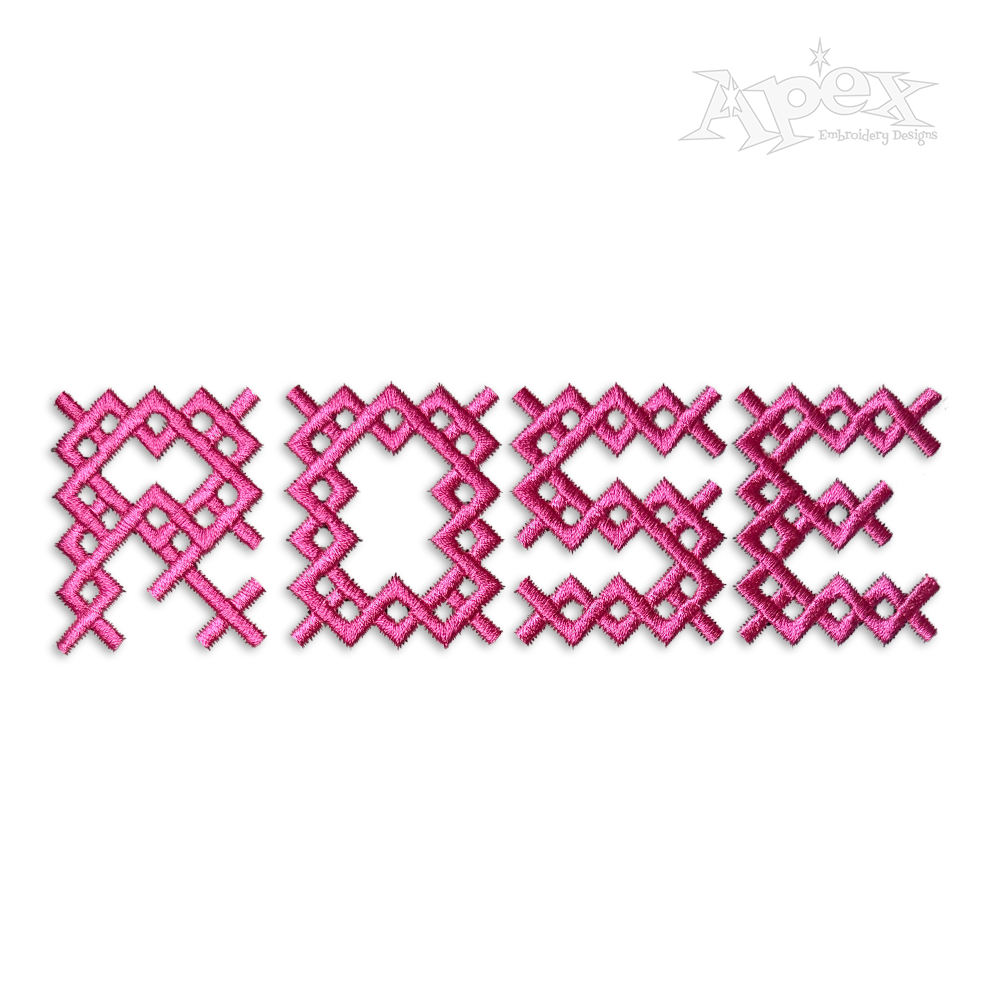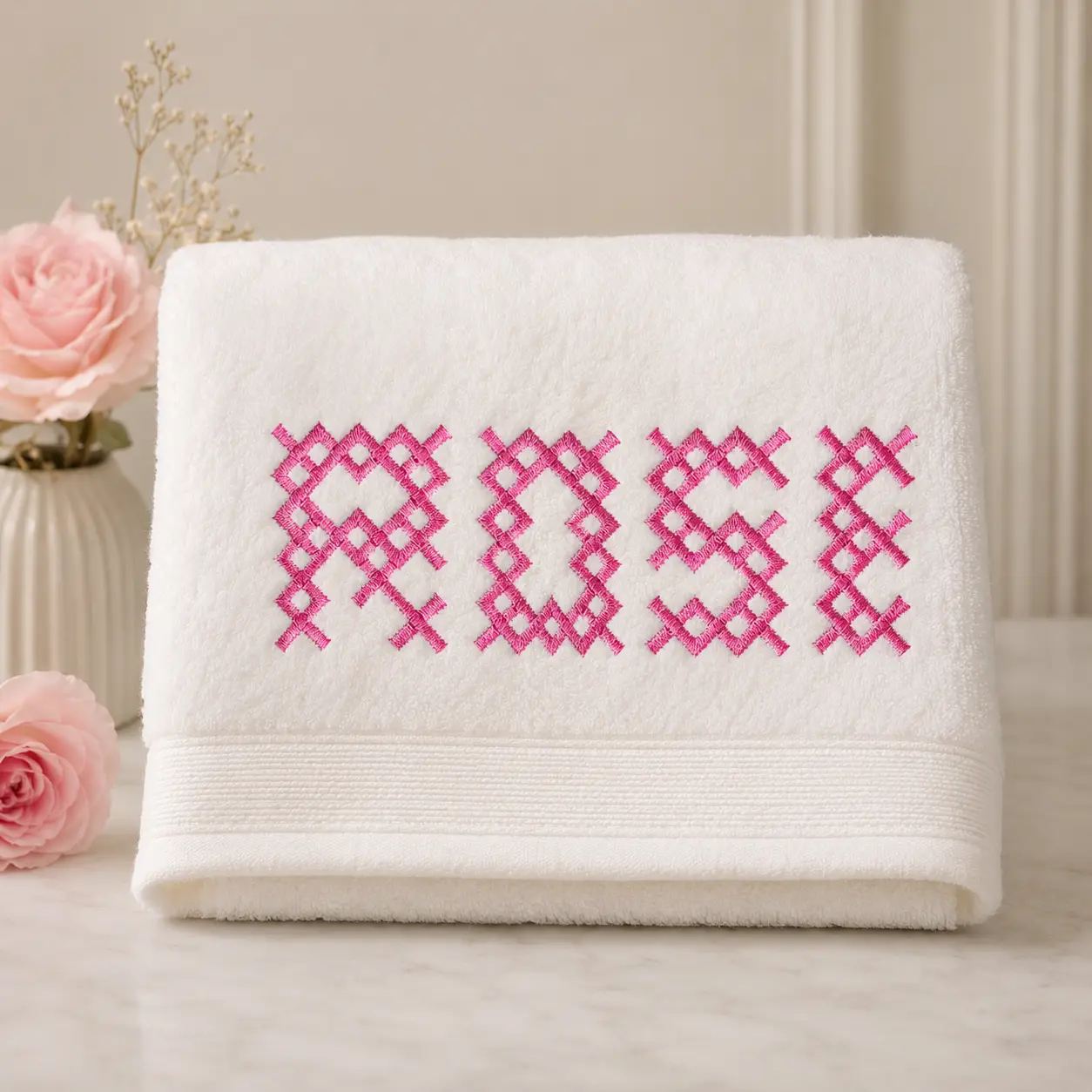
Cross Stitch Style Machine Embroidery Font
There is an intimate, quiet romance in traditional needlework—the deliberate rhythm of thread moving through woven cloth, conjuring memories of generational samplers, cozy hearthsides, and loving handcraft. In digitizing the Cross Stitch Style Machine Embroidery Font, our goal was to capture that quintessential folk authenticity while translating it into the smooth, dependable performance of modern machine embroidery. Each letterform presents the illusion of tenderly hand-sewn crosses, giving your personalized monograms, names, and bespoke gifts the soulful charm of an artisan keepsake made with patience and love.
Project Ideas for Cross Stitch Style
The tactile, handcrafted aesthetic of this alphabet lends warmth to a wide spectrum of creative embroidery endeavors:
- Heirloom Holiday Decor: Personalize family Christmas stockings, velvet tree skirts, and winter table runners with nostalgic, Nordic-inspired charm.
- Bespoke Farmhouse Linens: Stitch memorable family initials, kitchen sayings, or dates onto hemstitched flour sack towels, linen placemats, and rustic bread baskets.
- Nursery Keepsakes: Accentuate handcrafted baby blankets, personalized quilt blocks, and christening pillows with sweet, gentle lettering.
- Cottage-Style Gifting: Create custom monogrammed canvas gardening totes, canvas aprons, and cozy flannel loungewear for treasured personal gifts.
- Personalized Bridal & Anniversary Keepsakes: Embellish wedding date banners, heirloom recipe binders, and custom picnic throws with enduring folk grace.
To maximize the dimensional cross-stitch illusion, thoughtful placement on your blank is key:
- Diagonal Corner Framing: Position a single initial or three-letter monogram diagonally in the corner of linen dinner napkins, setting the motif 1.5 to 2 inches from the hem edge.
- Centering on Textured Textures: Excellent when stitched across open-weave linen, cotton canvas, waffle weave, or flannel, where the cross-stitch geometry harmonizes naturally with the textile grain.
- Chest & Pocket Alignments: Center full names or playful words across the upper chest of cozy knitwear, or place initials neatly over an apron bib pocket for an effortless maker aesthetic.
- Decorative Banding: Align numbers and lettering along the border hem of table runners or pillow shams to mirror antique sampler borders.
Cross Stitch Style Craft & Letterform Details
Simulating genuine cross-stitch on an embroidery machine requires an artisan's understanding of thread buildup and visual weight. Rather than relying on simple layered crosses that can bunch thread and cause needle deflection, each crossing stroke in this font is meticulously sequenced. The intersection points are carefully digitized to lay flat and crisp, maintaining the beloved texture of authentic 14-count needlepoint without creating stiff, dense clusters.
The typography balances clean structural clarity with the soft, inviting spirit of hand-sewn motifs. The uppercase letterforms feature upright, well-spaced anatomy and balanced crossbars, ensuring that every word remains instantly legible even from a distance. The resulting stitchout delivers consistent tension, minimal jump trims, and that timeless, rustic allure that makes every embroidered piece feel like a cherished family treasure passed down through hands of care.